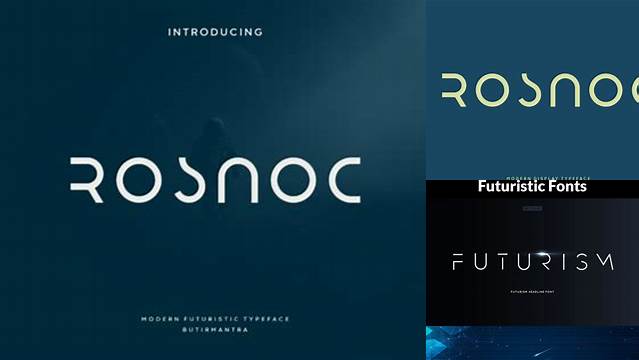
Hey guys! Are you on the hunt for that perfect, futuristic font to give your designs a cutting-edge vibe? Well, you’ve landed in the right spot! Today, we’re diving deep into the world of Rosnoc, a font that screams innovation and modernity. Whether you’re a seasoned designer or just starting out, finding the right font can make all the difference in your projects. So, let’s explore what makes Rosnoc so special and how you can snag it for free!
Rosnoc: A Deep Dive into this Futuristic Font
Before we jump into the nitty-gritty of downloading and using Rosnoc, let's really get to know this font. What exactly makes it a futuristic font, and why should you consider adding it to your font library? Rosnoc isn't just another typeface; it's a design statement. Its sleek lines, geometric shapes, and overall modern aesthetic give it a distinctive character that can elevate any project. Think about it – the right font can transform a simple poster into a visual masterpiece, and Rosnoc has that power. This font is designed with the future in mind, making it a fantastic choice for projects that aim to convey innovation, technology, and forward-thinking ideas.
Free Futuristic Fonts: Why Rosnoc Stands Out
When you’re searching for free futuristic fonts, it's easy to get overwhelmed by the sheer number of options available. But not all free fonts are created equal. Rosnoc distinguishes itself through its unique blend of style and functionality. It's not just about looking futuristic; it's about being versatile enough to use in a variety of contexts. From website headers to branding materials, Rosnoc can adapt to different design needs while maintaining its core futuristic identity. Many free fonts compromise on quality or readability, but Rosnoc strikes a balance, offering a polished and professional look without costing you a dime. This makes it an excellent choice for both personal and commercial projects where you need that extra touch of modernity.
How to Use Rosnoc in Your Designs: Unleash the Power of Futuristic Typography
Okay, so you’ve got your hands on Rosnoc – now what? Using a futuristic font effectively is about more than just slapping it onto a design. It's about understanding how its unique characteristics can enhance your overall message. Rosnoc works wonders in headlines, logos, and other display settings where its distinctive letterforms can shine. Think about using it for tech startups, gaming websites, or anything related to innovation and cutting-edge technology. But don’t limit yourself! Experiment with different sizes, weights, and colors to see how Rosnoc can transform your work. The key is to let the font's futuristic vibe complement your content, creating a cohesive and impactful design.
Exploring Font Alternatives: Other Great Futuristic Options
While Rosnoc is an excellent choice for a futuristic font, it’s always good to have options, right? The world of typography is vast and full of exciting alternatives. Maybe you’re looking for something a bit bolder, or perhaps a font with a slightly different futuristic twist. Some other fantastic futuristic fonts to consider include:
- Nexa Rust: This font has a textured, industrial feel that works well for edgy designs.
- Orbitron: A geometric sans-serif font that's perfect for tech-related projects.
- Bebas Neue: A clean and modern sans-serif that’s highly versatile.
- Montserrat: A classic sans-serif with a contemporary feel, suitable for a wide range of applications.
Exploring different fonts can help you find the perfect match for your project’s unique needs.
The Impact of Typography: How Fonts Shape Your Message
Let’s talk about the bigger picture for a moment. Typography isn’t just about choosing pretty letters; it’s about communication. The fonts you use play a huge role in how your message is perceived. A futuristic font like Rosnoc can instantly convey innovation and modernity, while a more traditional serif font might evoke feelings of trust and reliability. Think of fonts as the voice of your design – they speak volumes without saying a word. By carefully selecting your fonts, you can enhance your message and connect with your audience on a deeper level. It's about creating a visual language that resonates with your audience and reinforces your brand identity. This is why choosing the right font is crucial for any design project.